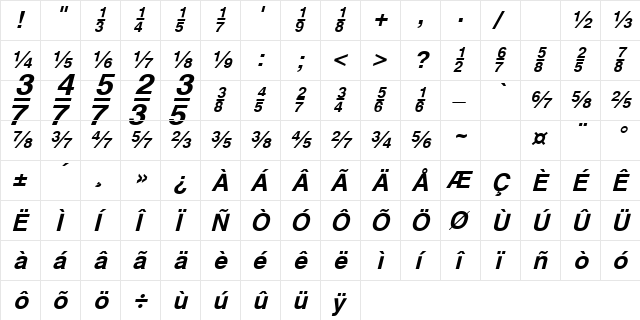
HeFractions BoldItalic
Design Context for HeFractions Typeface
HeFractions offers clean, dependable letterforms without strong stylistic allegiance, making it a practical choice for designers who need flexibility. The slanted form adds forward momentum and visual energy. Its bold stroke weight gives it real presence on the page.
Pro Tip: Use HeFractions for emphasis, pull quotes, and subheadings where its slanted energy can add rhythm to the layout.